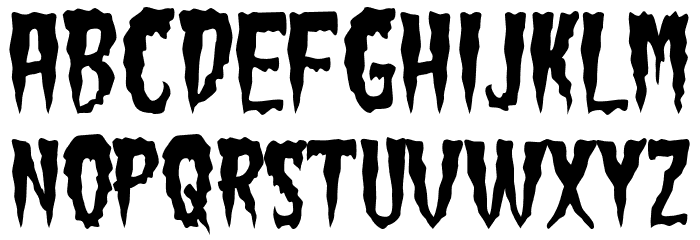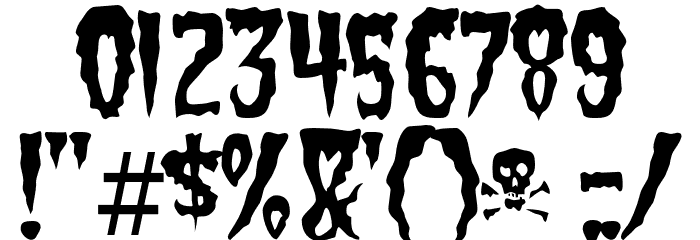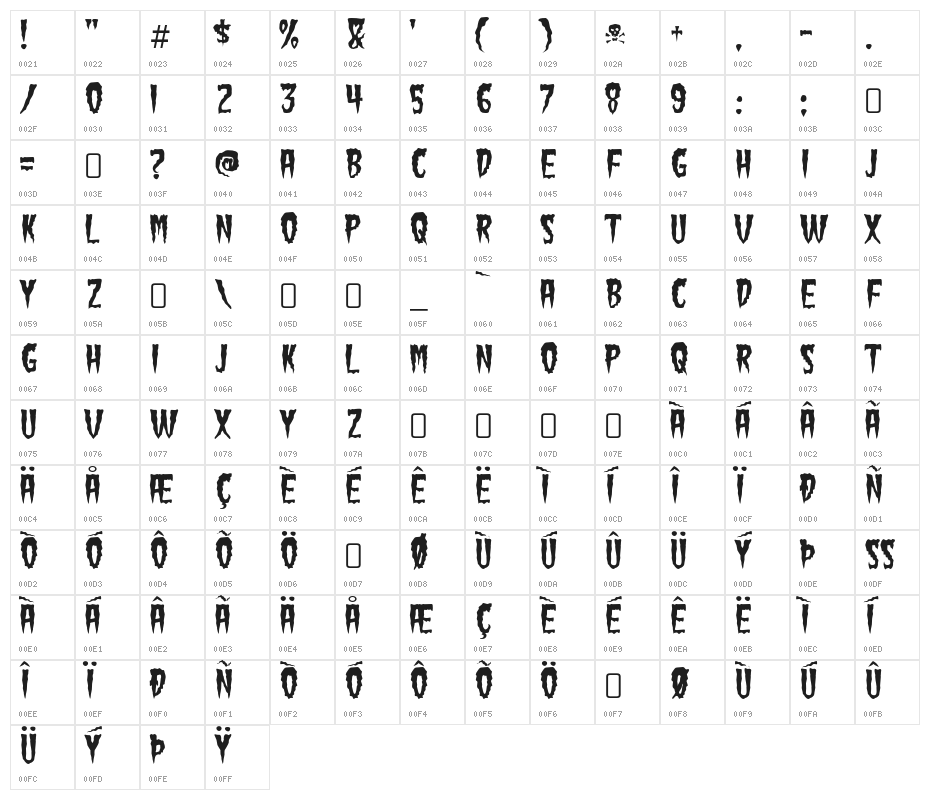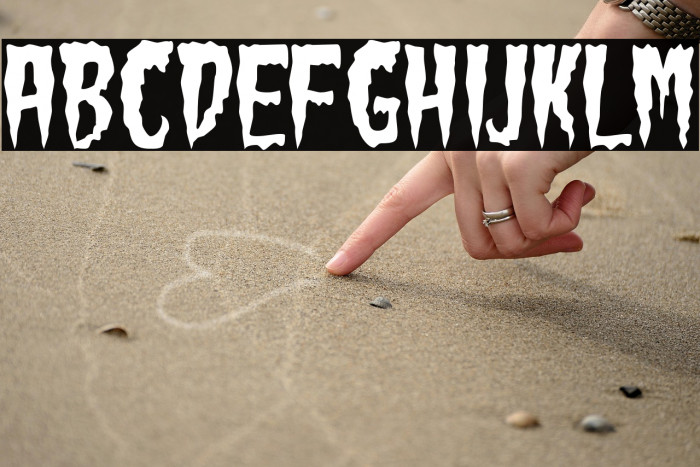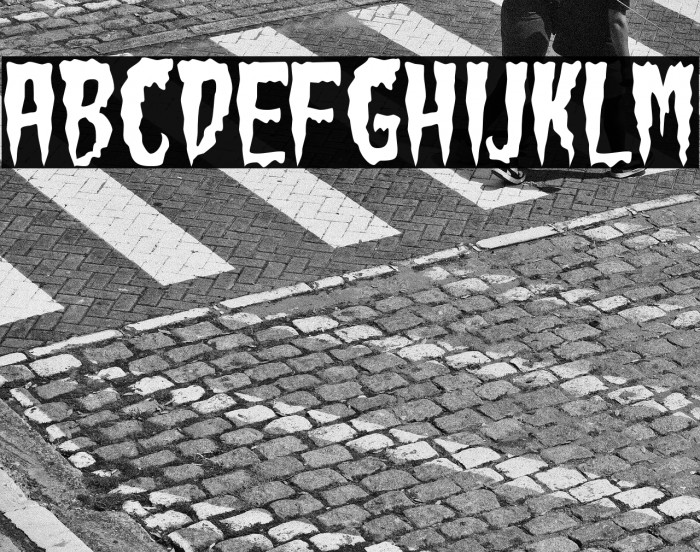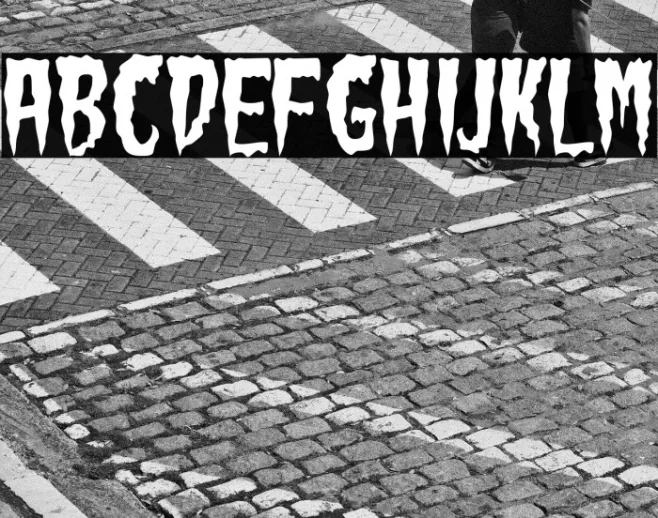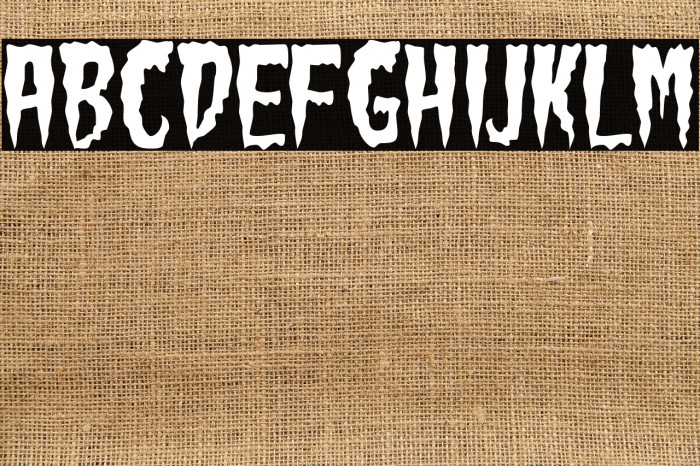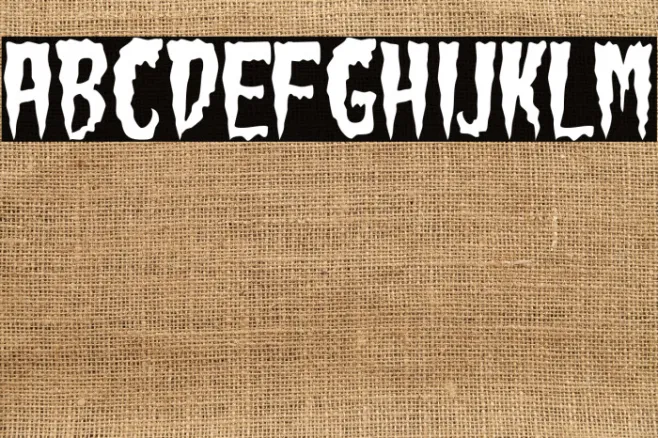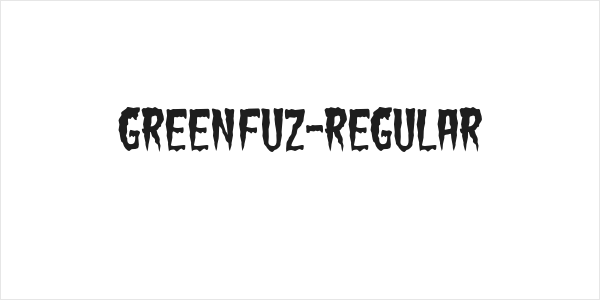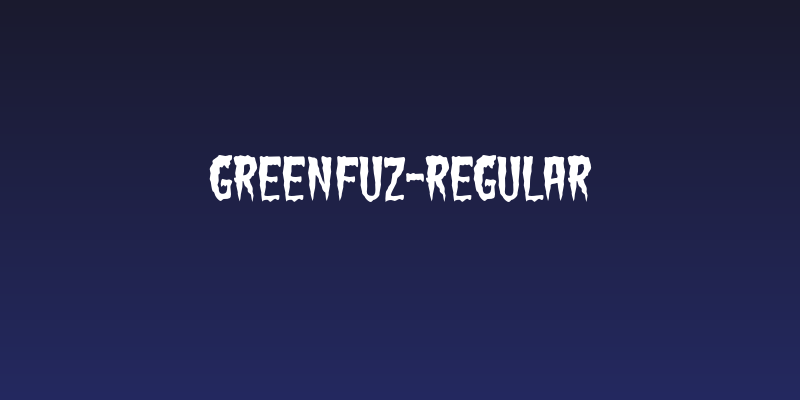
GreenFuz-Regular Font
This font features a bold, jagged style that evokes a sense of horror and mystery. The characters are irregular and uneven, with sharp edges and a distressed appearance, reminiscent of dripping or melting forms. This design gives it a unique, eye-catching look that is perfect for creating an eerie atmosphere. The uppercase and lowercase letters maintain a consistent style, while the numbers and special characters complement the overall theme. The font's distinctive appearance makes it ideal for projects that require a dramatic and spooky touch.
A bold, jagged font with a horror-inspired, distressed style.
- Proposed Projects: Ideal for Halloween-themed designs, horror movie posters, spooky event invitations, and haunted house advertisements.
- Use Case: Headlines, Posters, Logos